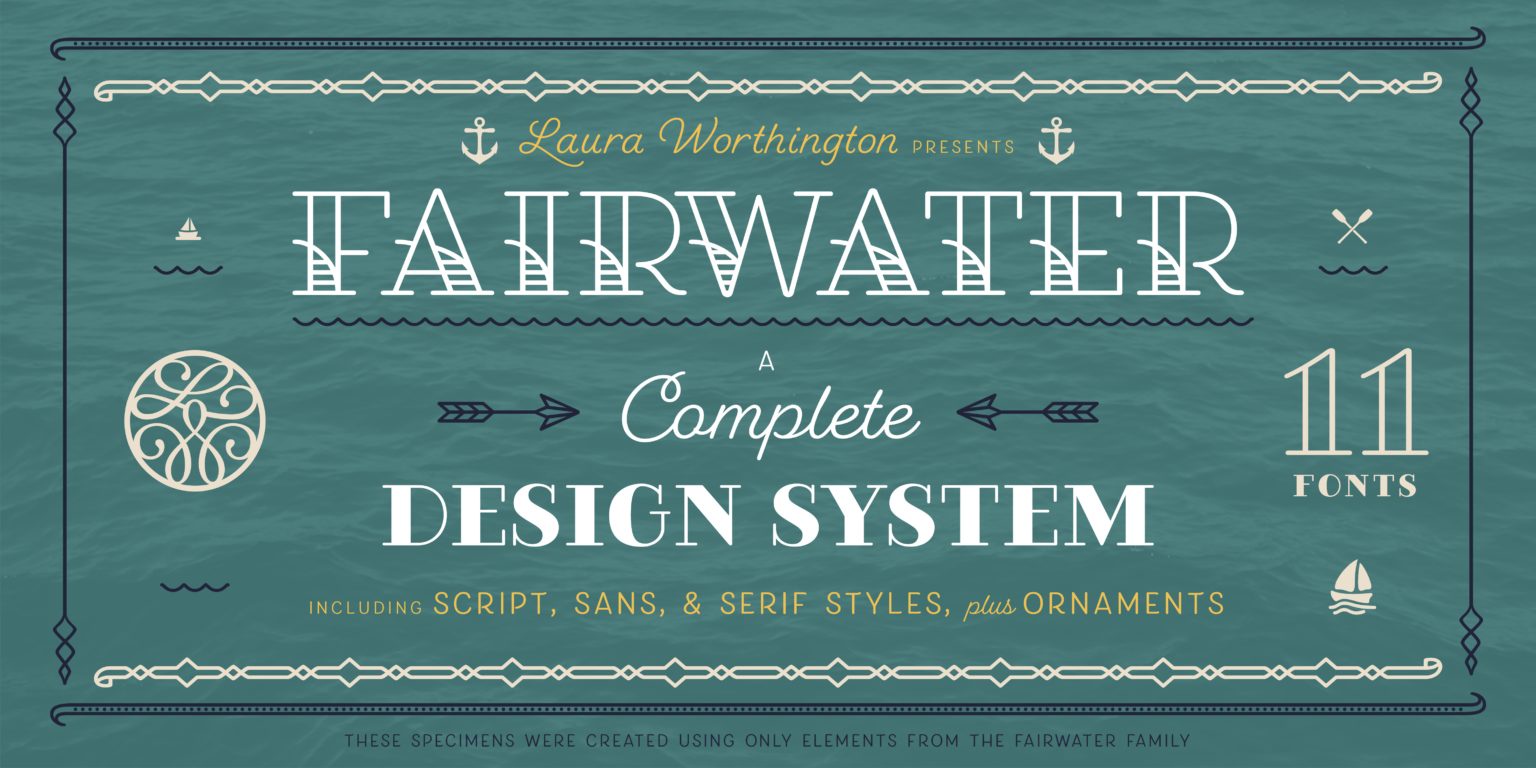
Fairwater Font
Fairwater Font is perfect for lakeside resort branding, waterfront restaurant menus, marina marketing materials, boat club communications, aquatic sports equipment packaging, water park signage, sailing instruction manuals, and coastal tourism publications where serene water environments and recreational boating are celebrated.
What makes Fairwater Font so exciting is its fluid ability to capture the tranquil essence of pristine waters through gracefully flowing letterforms that embody the peaceful rhythm and natural beauty of aquatic environments while maintaining crystal-clear readability. The gentle character design reflects the calming serenity and refreshing vitality that draws people to waterfront destinations.
The Fairwater Font family includes light, regular, medium, bold, and script variants, with water-inspired decorative elements and aquatic ornaments that provide comprehensive tools for creating authentic waterfront branding and marine recreation design systems.
The font's flowing character details and wave-like proportions create immediate associations with peaceful waters and recreational boating activities. Each letterform has been crafted to evoke the gentle movement and pristine clarity that makes waterfront locations so appealing for relaxation and recreation.
Fairwater Font transforms hospitality communications into compelling invitations to aquatic relaxation and waterfront adventure. The typeface's serene personality makes it ideal for resorts, marinas, and recreational businesses emphasizing peaceful water experiences and quality aquatic services.
From lakeside lodges to yacht clubs, this font brings aquatic authenticity that appeals to guests seeking genuine waterfront experiences and recreational boating opportunities. The versatile design maintains its water-inspired character across both traditional hospitality applications and modern digital booking platforms.